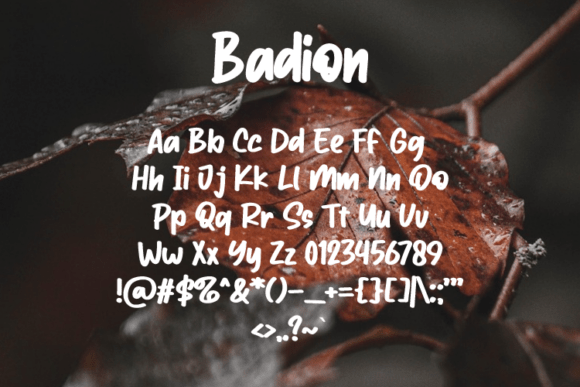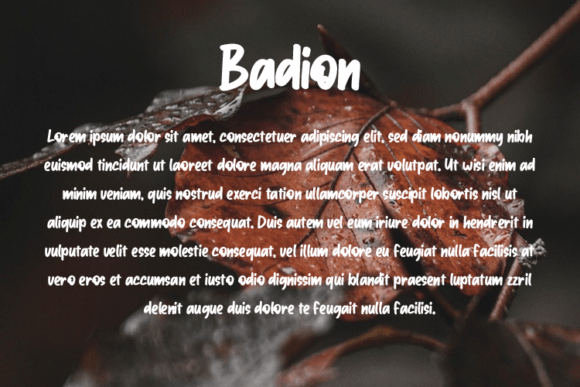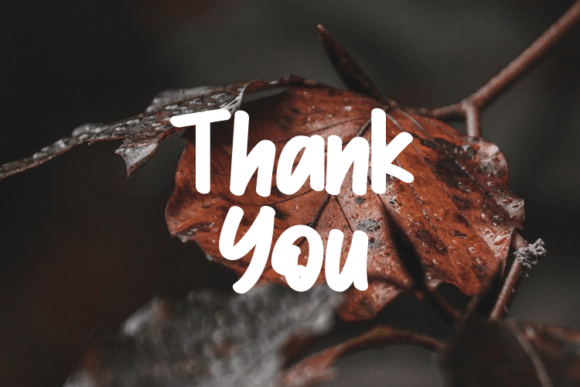
Introducing Badion Font: The Epitome of Modern Elegance and Readability
In the vast universe of typography, where fonts serve as the backbone of design, influencing readability, aesthetic appeal, and the overall impact of visual content, Badion Font emerges as a beacon of modern elegance and versatility. Specifically crafted to cater to the needs of designers, crafters, and anyone looking for a typeface that seamlessly blends sophistication with functionality, Badion Font is poised to revolutionize the way we perceive and interact with text across various media platforms.
Design Philosophy and Features
Badion Font is rooted in a design philosophy that prioritizes flexibility and readability. This modern typeface is not just a collection of letters and symbols; it’s a tool designed to enhance the visual appeal of any project, whether it’s a branding campaign, a website, a printed brochure, or a digital presentation. Its elegant design ensures that it can adapt to various contexts, making it a versatile asset for any creative endeavor.
Advantages for Designers and Crafters
For designers and crafters, the choice of font can make or break a project. Badion Font offers several advantages that make it an ideal choice for creative professionals:
- Elegance and Versatility: Its modern and elegant design makes it suitable for a variety of projects, from luxury branding to digital content creation.
- Excellent Readability: In an era where content is king, the readability of text is paramount. Badion Font ensures that your message is conveyed clearly and effectively, across digital and print media.
- Wide Application Range: From web design and advertising to packaging and editorial design, Badion Font’s versatility knows no bounds.
Utilizing Badion Font in Design Projects
- Pairing: Experiment with different font pairings to enhance the visual appeal of your project. Badion Font’s elegant design makes it a great candidate for pairing with a variety of typefaces.
- Sizing: Take advantage of Badion Font’s excellent readability by using it across different sizes, from headings to body text.
- Color: Play with color to add depth and emotion to your design. Badion Font’s modern design ensures that it looks great in both black and white and in color.
Badion Font represents a significant advancement in typography, offering a perfect blend of modern elegance, versatility, and readability. Its design and technical features make it an invaluable asset for designers and crafters looking to elevate their projects. Whether you’re working on a digital platform or a print project, Badion Font is poised to become your go-to typeface for creating visually stunning and effective designs.
As the world of design continues to evolve, embracing innovative tools like Badion Font can help you stay ahead of the curve. With its broad application range and user-friendly compatibility, Badion Font is not just a typeface – it’s a gateway to unlocking new creative possibilities.